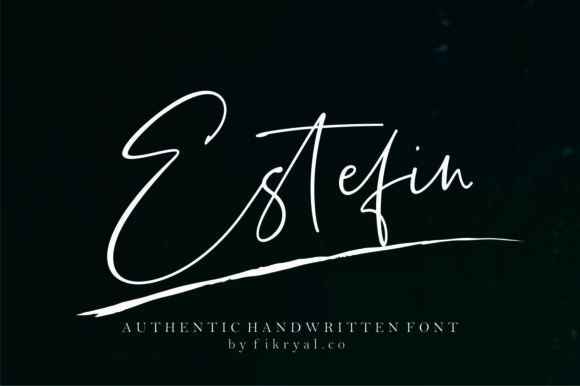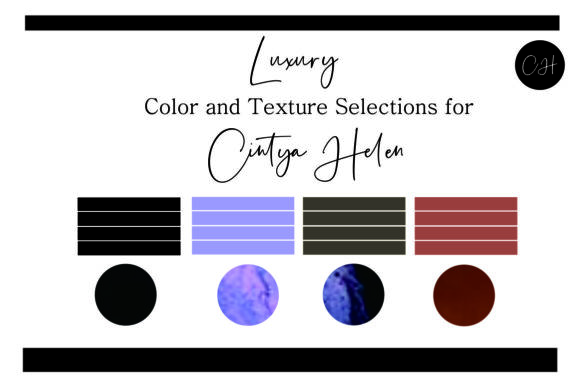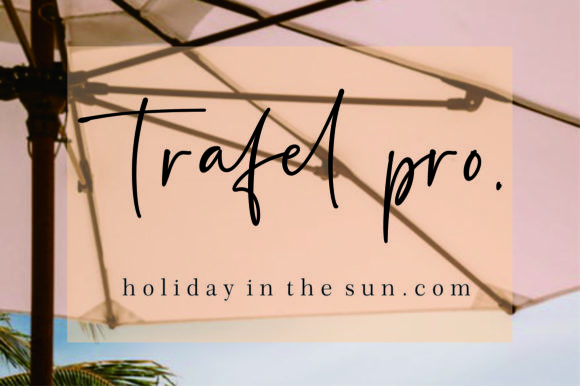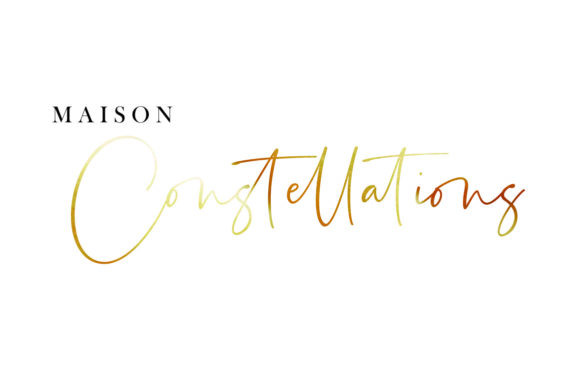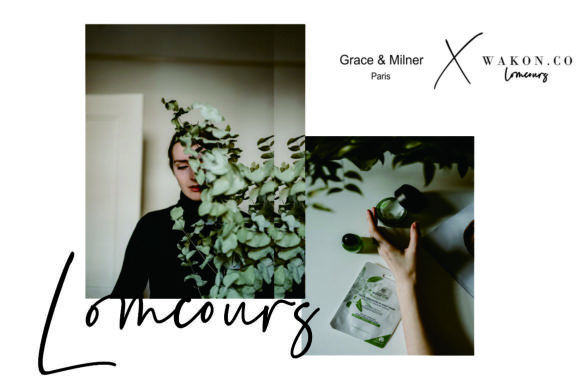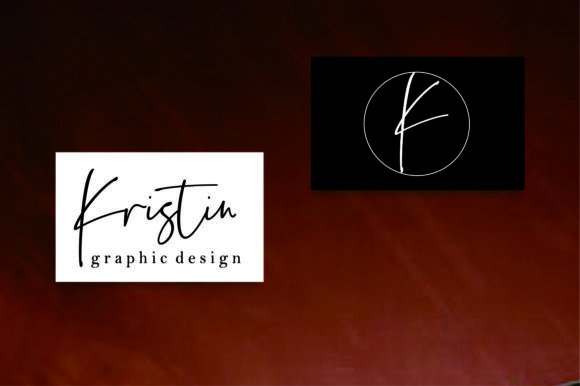
Estefin Font
About Estefin Font
Estefin is a dynamic, handwritten font that features natural and authentic strokes. Blending classic elements with a contemporary edge, it provides an elegant and beautiful impression for all types of projects.